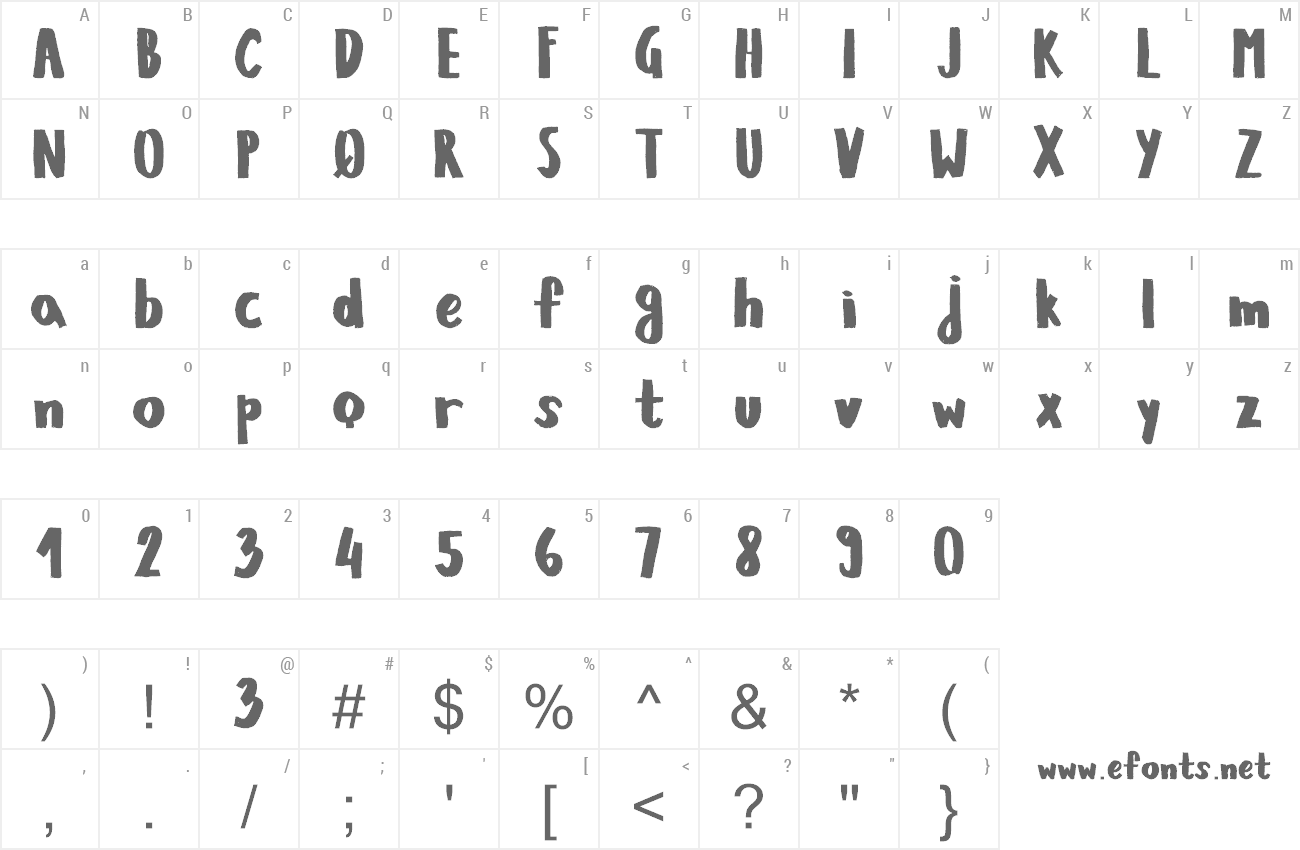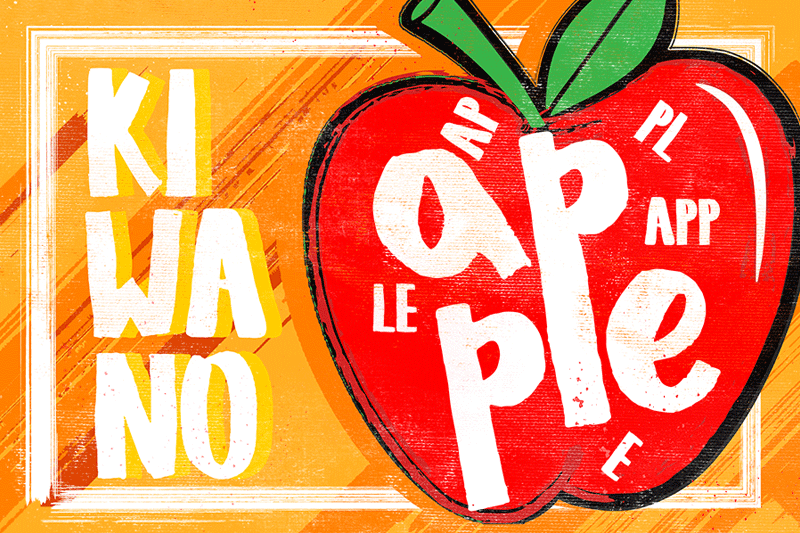
Preview and download Kiwano Apple Font. Created by Leonard Posavec - LeoSupply.co in Fancy Cartoon styles with Free for personal use license.
This is handmade Font, suitable for design, element design, wedding, event, t-shirt, logo, badges, sticker, and awesome work about summer. If you want to use it in commercial purpose please buy licence here : http://www.leosupply.co Please report if you find any bugs or have some problems with this font. This font is only for PERSONAL use |